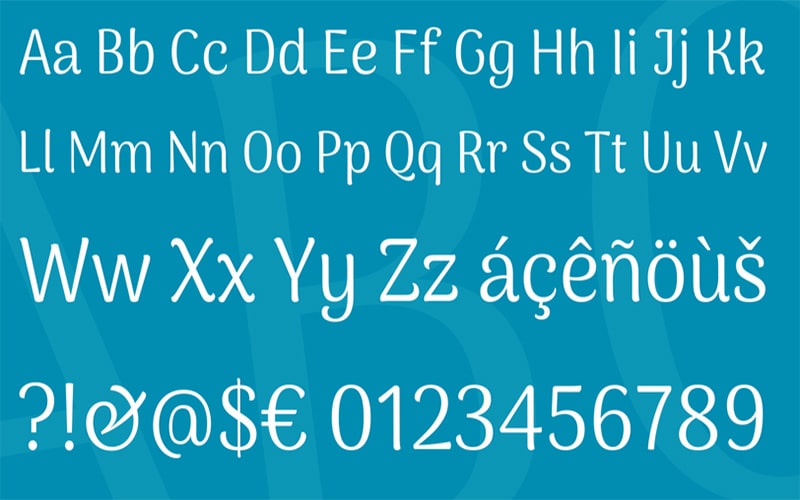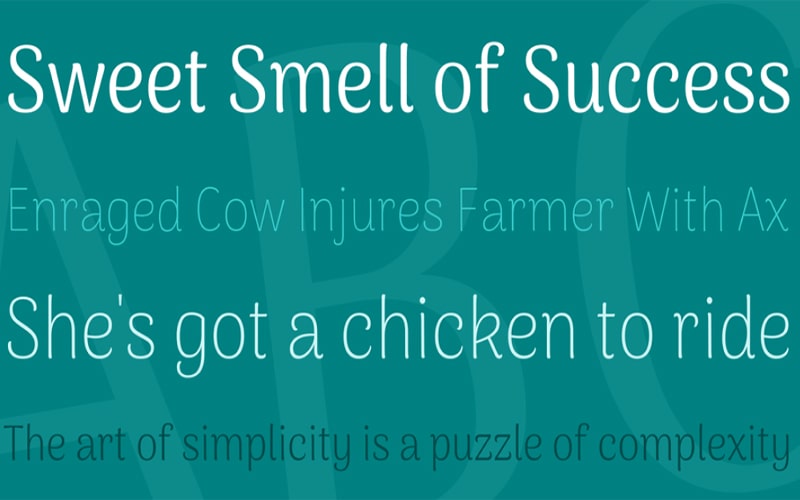
Arima Madurai is a Sans serif and display font with soft edges and a calligraphic feel that is the main inspiration of this project. It has a low contrast to allow good rendering on screen.
It was created by two designers Natanael Gama and Joana Correia for the first time. Joana designs typefaces with her strong interest in global linguistic culture for the Indic writing system.
Arima Madurai font consists of unique and stylish eight styles. This includes Thin, Extra-light, Light, Regular, Medium, Bold, Extra-bold, and black.
These unique styles have 179 sample glyphs count in number. It also supports multiple languages which spread it around all over the world so designers prefer to work with this font.